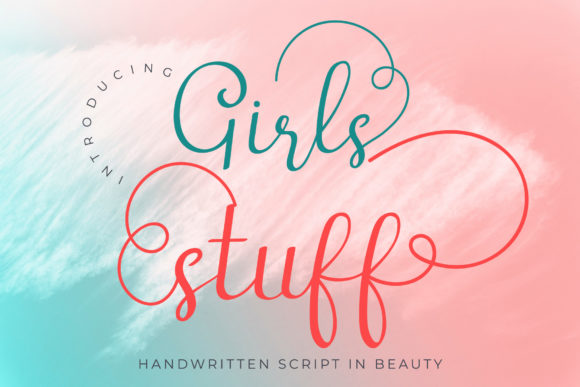
Girls Stuff Font
Step into the enchanting world of Girls Stuff Font, a captivating script font adorned with graceful swashes and elegant ligatures. Its modern charm and playful personality will transform your creative visions into stunning masterpieces, adding an irresistible touch of whimsy and sophistication to every project.
Unleash the boundless potential of this font in your invitations, greeting cards, logos, social media posts, packaging designs, and any project demanding a touch of whimsy and playful sophistication. Let its enchanting curves and sweeping strokes weave an ethereal tapestry of words that draw attention and leave a lasting impression.
As a creation of airotype, Girls Stuff Font boasts impeccable quality and meticulous craftsmanship. Its every letterform is a testament to artistic excellence, crafted to impart a sense of effortless style and sophistication to your designs.
With its extensive character set and multilingual support, Girls Stuff Font effortlessly accommodates a wide range of alphabets, including Western, Eastern European, and Baltic languages. It also features a comprehensive array of symbols and punctuation marks, ensuring seamless compatibility with diverse projects and languages.